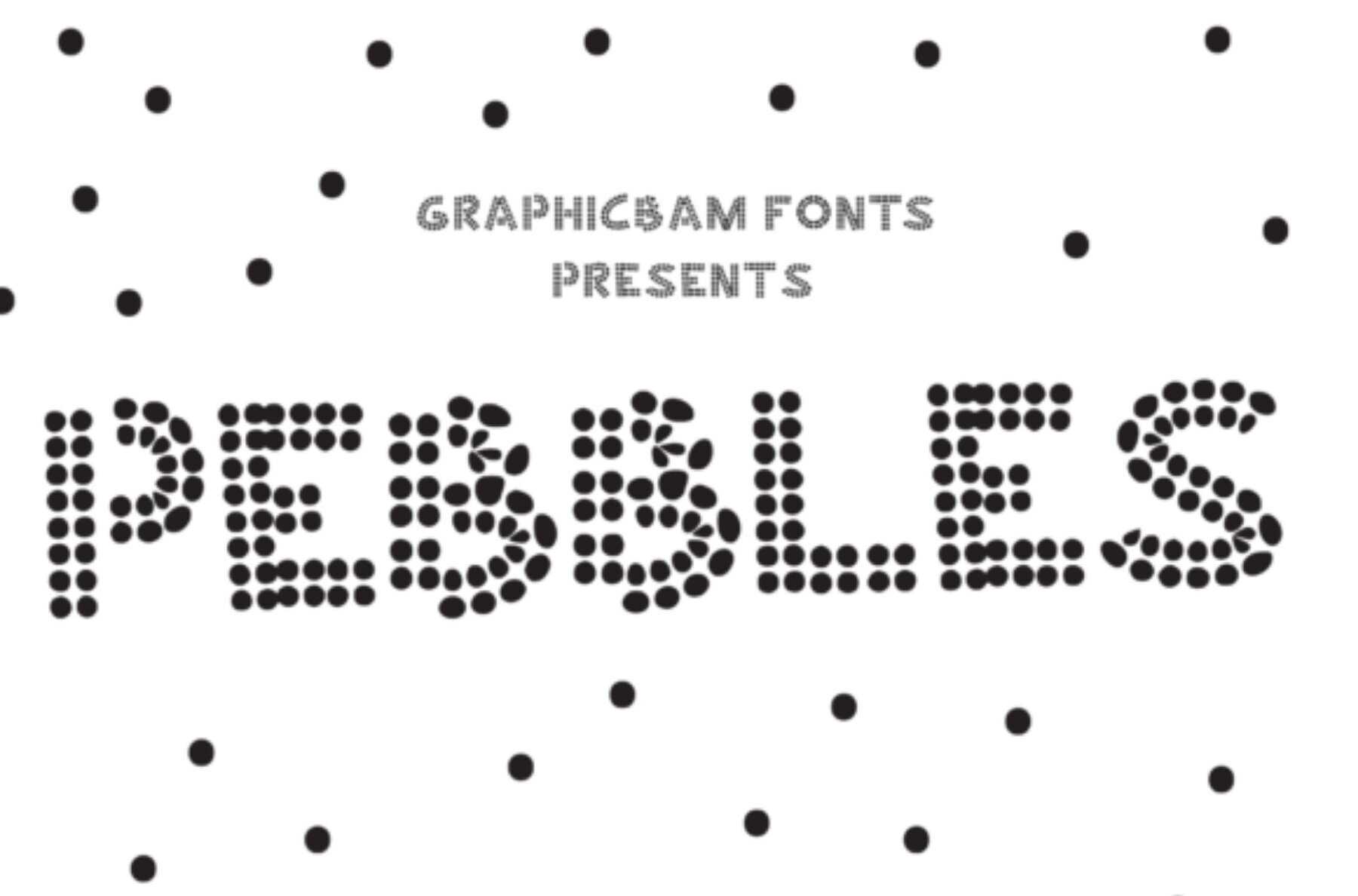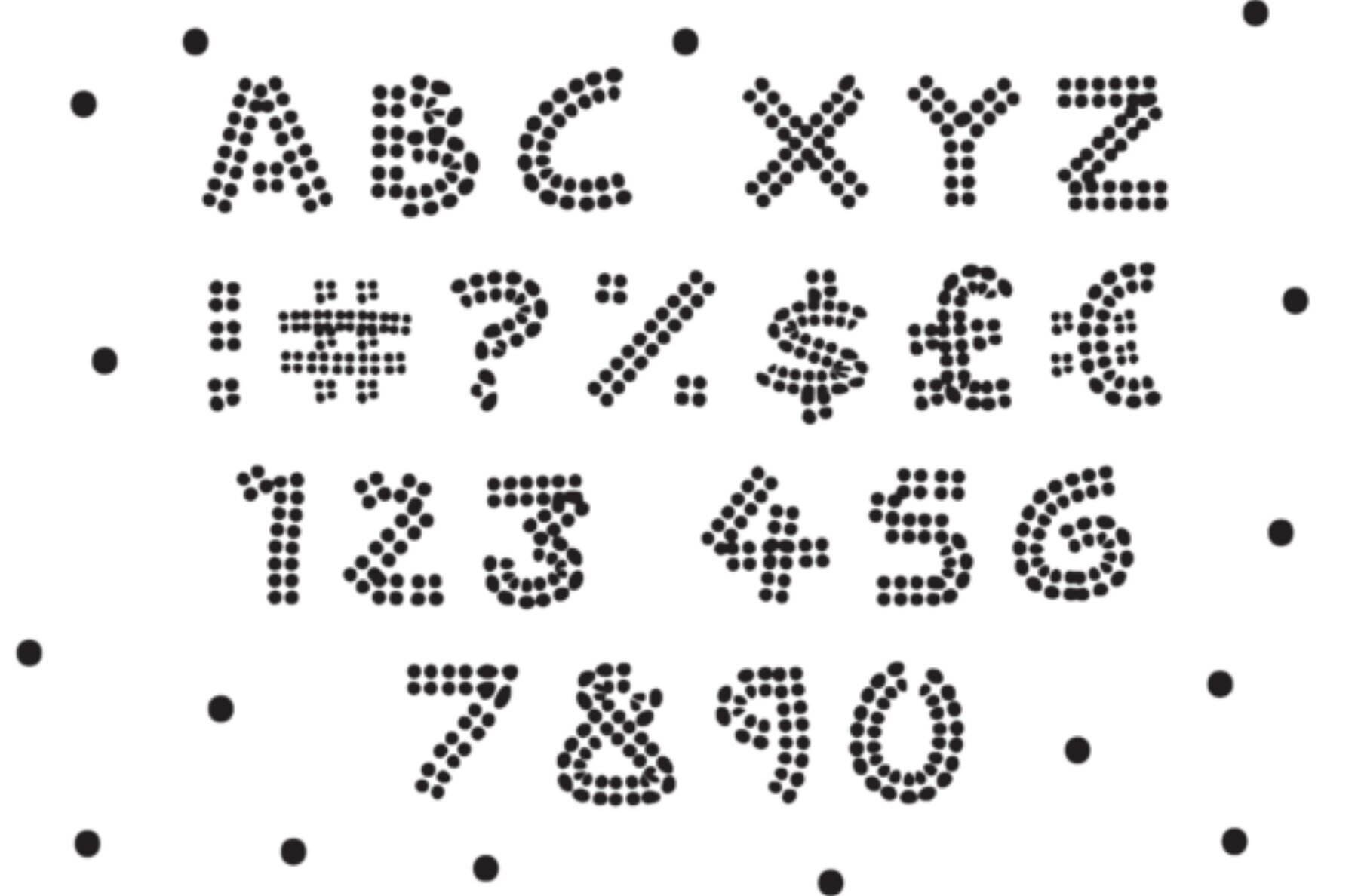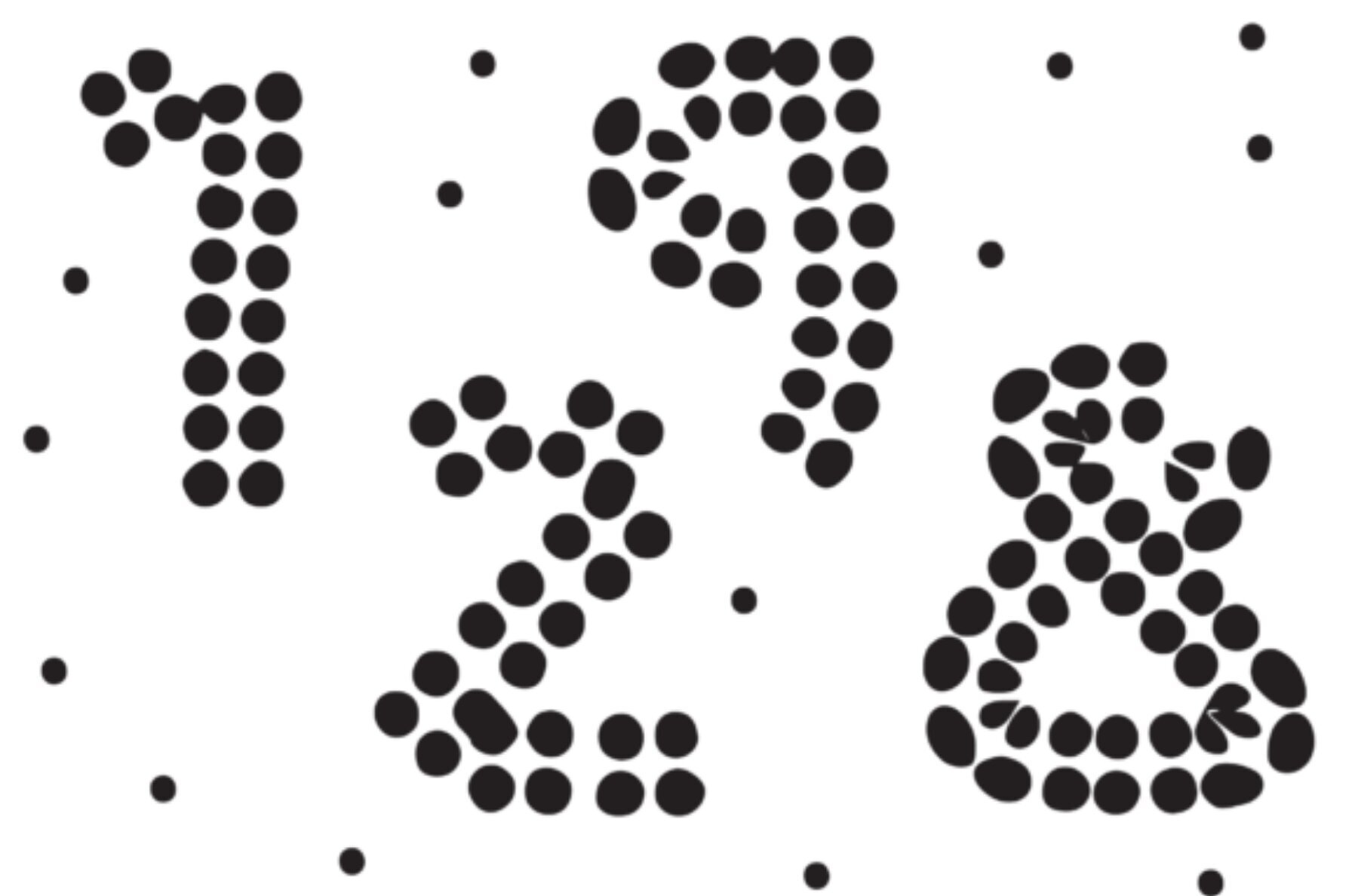
Pebbles Font
Pebbles
Pebbles is a captivating display font that brings an element of nature to your typography designs. Each character is crafted entirely from pebble-inspired shapes, creating a unique and textured aesthetic. Ideal for projects that call for a touch of the outdoors, Pebbles adds personality and charm without compromising readability.Pebbles Display Font